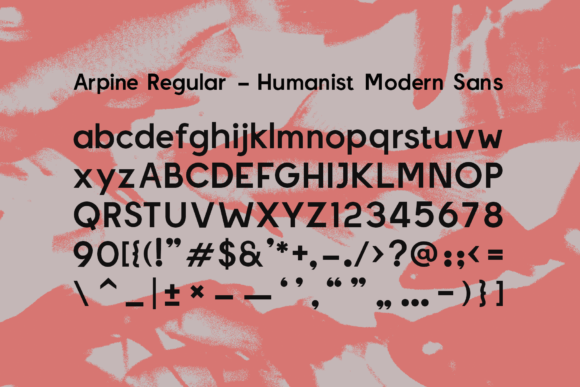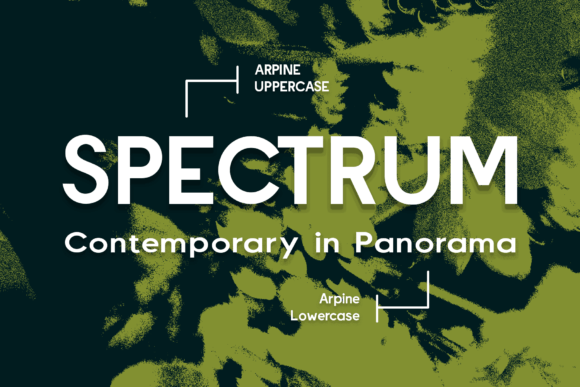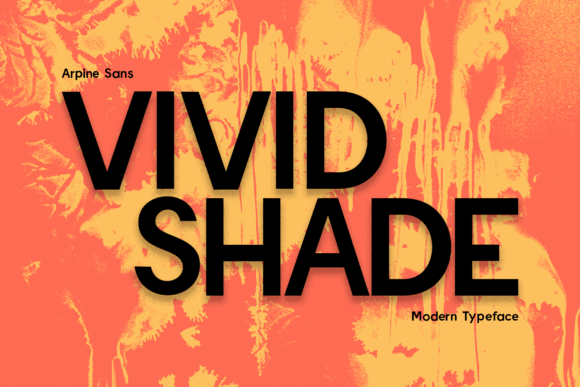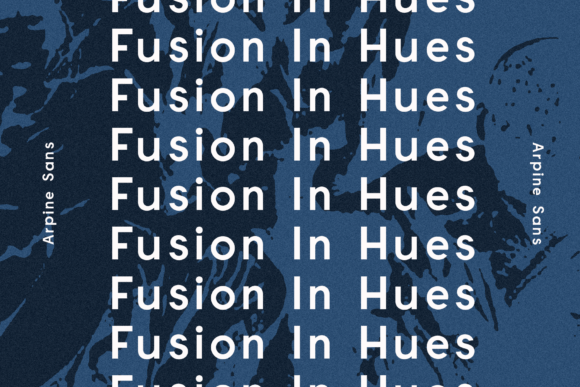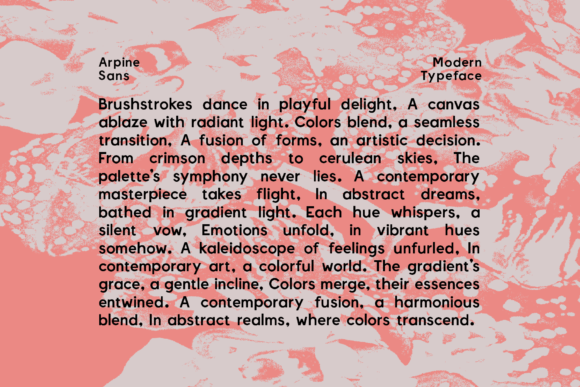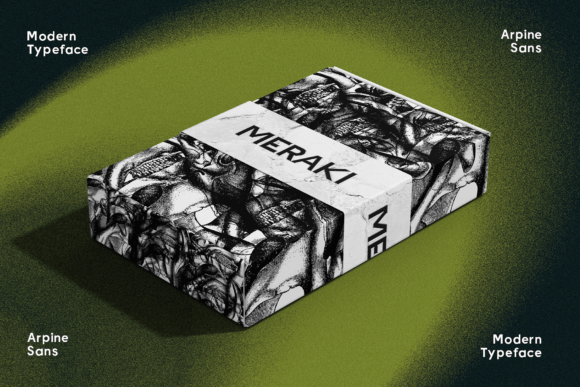
The Perfect Font for Your Next Big Project
As designers, we’ve all been there – staring at a blank page, searching for the perfect font to bring our vision to life. And then, it hits us – that moment of inspiration when everything falls into place, and the design starts to take shape. For those of us who crave a unique and contemporary look, the Arpine Font is the answer to our prayers.
Arpine Font is a sans-serif font that boasts bold strokes, sharp angles, and clean lines, giving it a strong and confident appearance. Its distinctive letterforms set it apart from other sans-serif fonts, making it a valuable addition to any designer’s toolkit. Whether you’re creating a logo, brochure, or website, the Arpine Font is perfect for designers who want to create eye-catching and sophisticated designs.
Arpine Font Key Features
- Font Family: Arpine Font is a sans-serif font family with a modern and clean design.
- Size: The font family includes a range of weights from Light to Bold, providing flexibility for various design applications.
- Resolution: Optimized for high-resolution displays, making it suitable for use in digital media, such as web design, mobile apps, and print materials.
- Unique Characteristics: Arpine Font features a unique blend of geometric and organic elements, resulting in a distinctive and recognizable design language.
- Language Support: Supports a wide range of languages, including Latin, Cyrillic, and Greek alphabets, making it a versatile choice for global design projects.
Designer Review: Arpine Font
Overall, I found Arpine Font to be a beautiful and elegant sans-serif typeface. ✨ Its clean lines and modern aesthetic make it perfect for a wide range of design applications, from digital interfaces to print materials.
Here are some things that I think work well in Arpine Font:
- ✨ High legibility: The font is highly readable, making it ideal for body text and other areas where readability is crucial.
- ✨ Versatility: Arpine Font is suitable for a variety of design styles, from minimalist to bold and edgy.
- ✨ OpenType features: The font includes a range of OpenType features, including swashes, ligatures, and alternates, which add a touch of personality to your designs.
- ⚠️ Limited language support: While Arpine Font includes support for several languages, it falls short in terms of language coverage.
- ⚠️ Some font weights may not be suitable for small text sizes: While the font is highly legible, some of the lighter weights may not be suitable for very small text sizes.
Overall, I think Arpine Font is a great choice for designers looking for a modern, elegant sans-serif typeface. While it may have some limitations, its versatility and high legibility make it a solid addition to any design arsenal.
Tips for Getting the Most Out of Arpine Font
Use Arpine Font for titles, headings, and other emphasis areas to create a visually appealing design.
Experiment with different font sizes and colors to create contrast and balance in your design.
Combine Arpine Font with other fonts to create a unique and interesting typography.
Use Arpine Font for:
Designing titles and headings for presentations and documents.
Creating logo designs and branding materials.
Adding a touch of elegance and sophistication to your design projects.
Alternatives to Arpine Font
Playfair Display is an elegant and luxurious serif font, ideal for creating a high-end look in branding, advertising, and editorial designs. It’s perfect for using as a headline font to draw attention and create a sense of sophistication. Compared to Arpine Font, Playfair Display has a more classical and refined feel, making it suitable for luxury brands and high-end publications.
Lato is a clean and modern sans-serif font, great for creating a contemporary look in digital and print designs. It’s perfect for using as a body font to provide clear and readable text. Compared to Arpine Font, Lato has a more minimalist and versatile feel, making it suitable for a wide range of designs, from websites and apps to magazines and brochures.